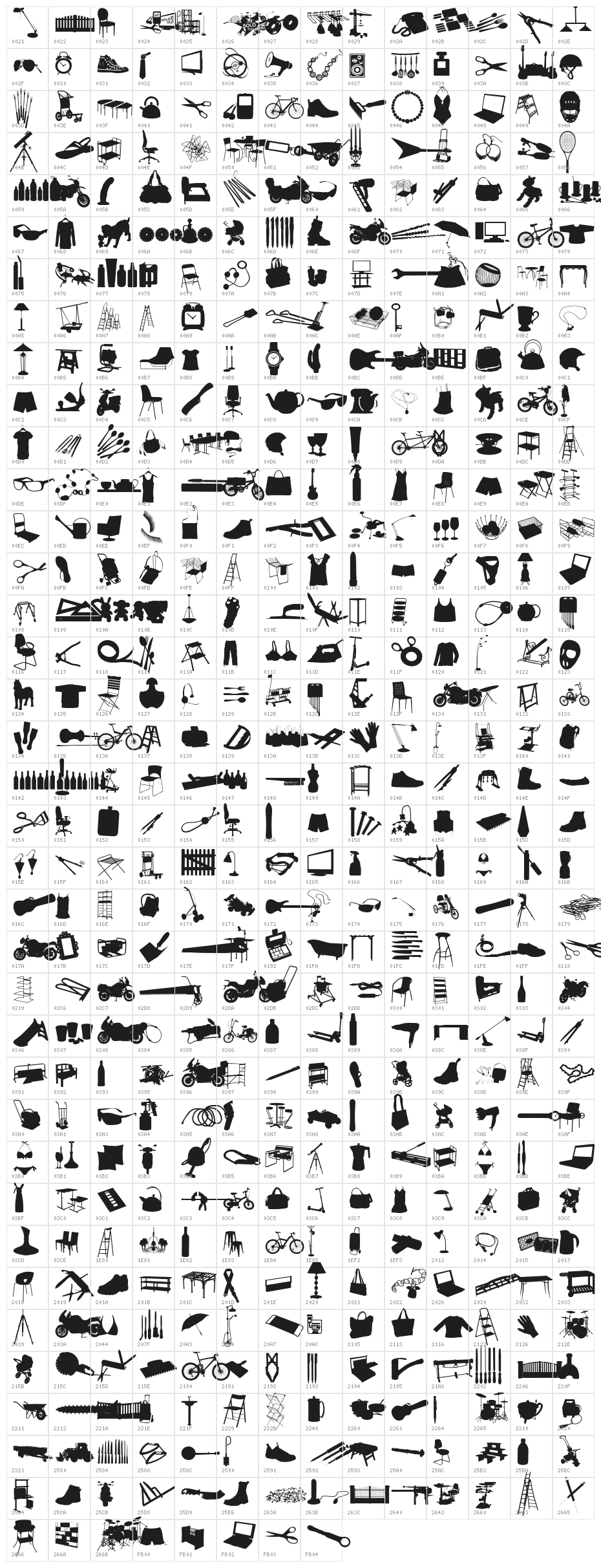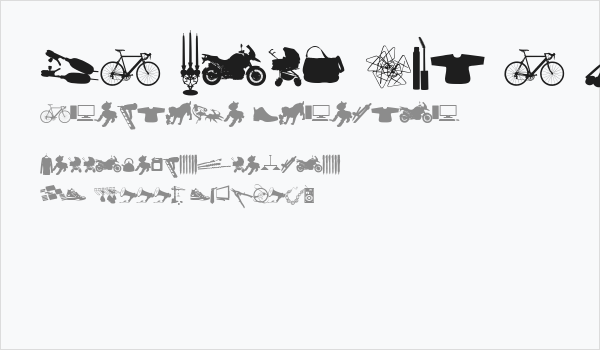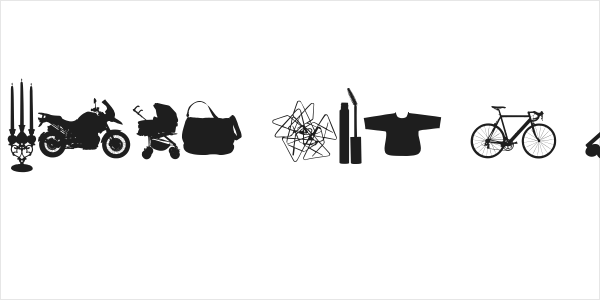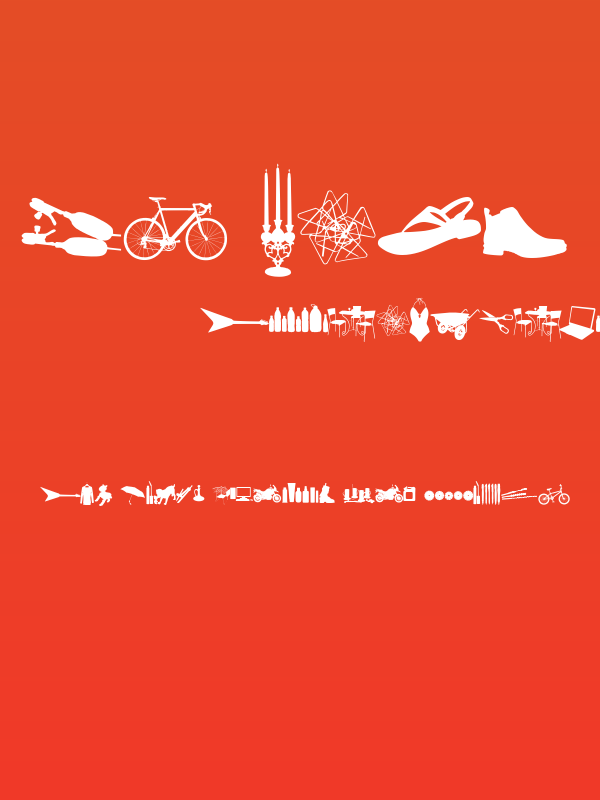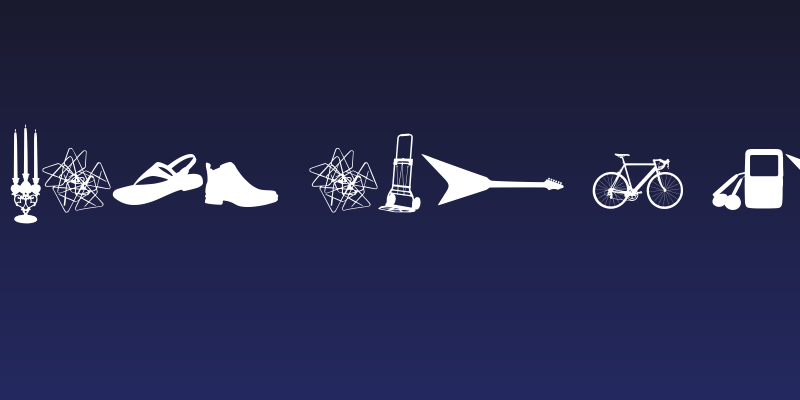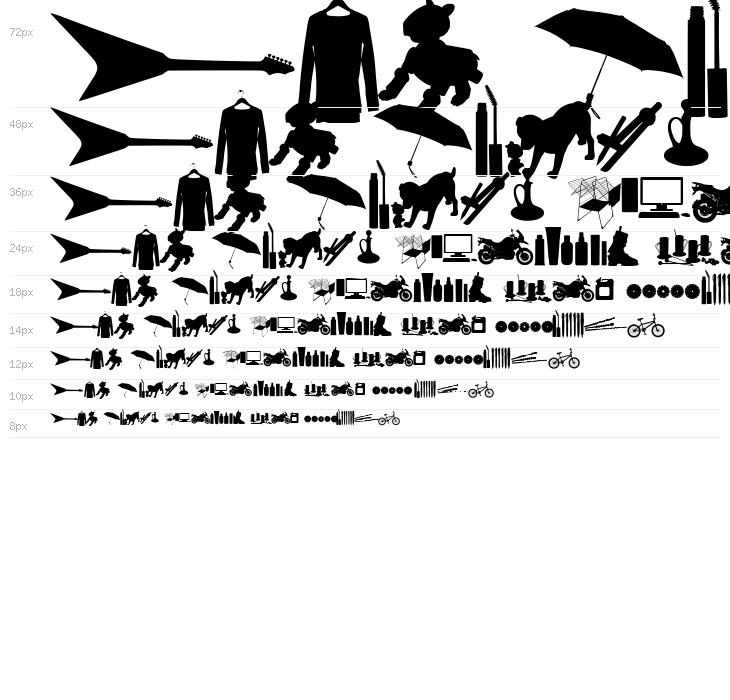
WC Sold Out C Bta Font
WC Sold Out C Bta Description
A pictogram-style dingbat font composed entirely of bold, black silhouettes representing various objects such as electronics, clothing, tools, furniture, and accessories. Each character is replaced by a unique, easily recognizable icon, making it highly illustrative and decorative.
| Overall Style | Decorative, Modern |
| Use Case | Icons, visual communication, posters, creative layouts. |
| Proposed Projects | Infographics, signage, educational materials, visual aids, playful branding, icon sets. |